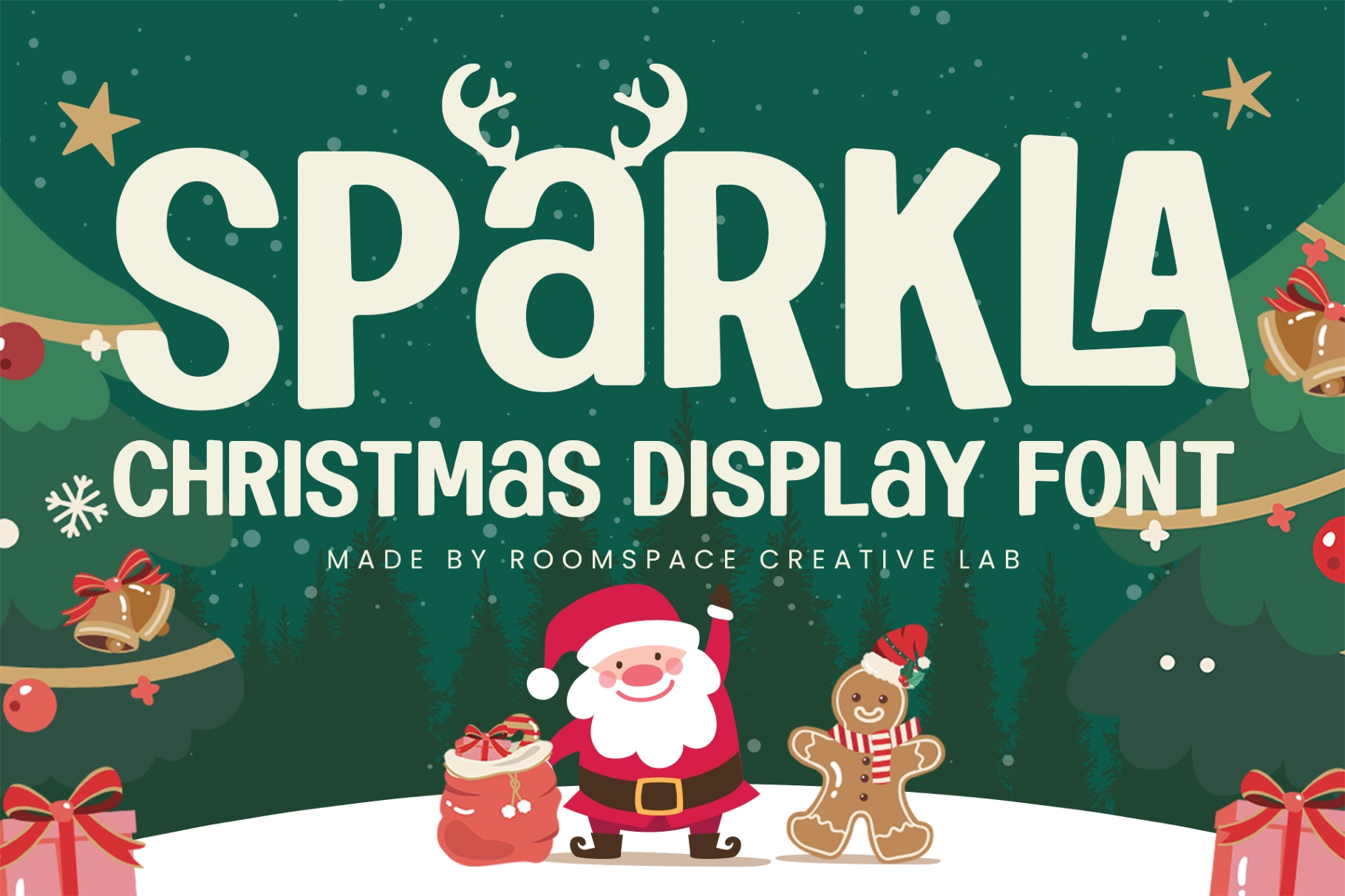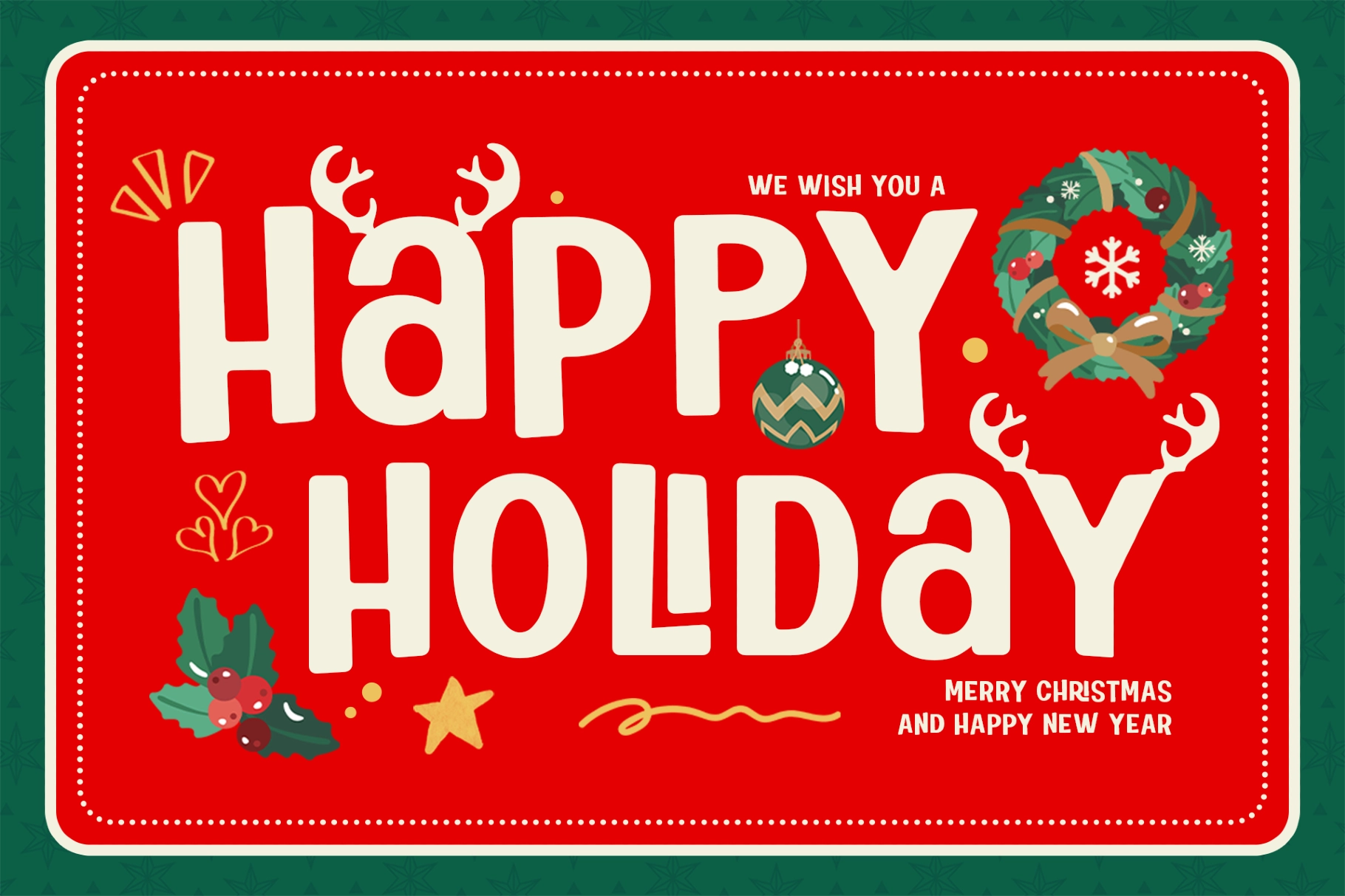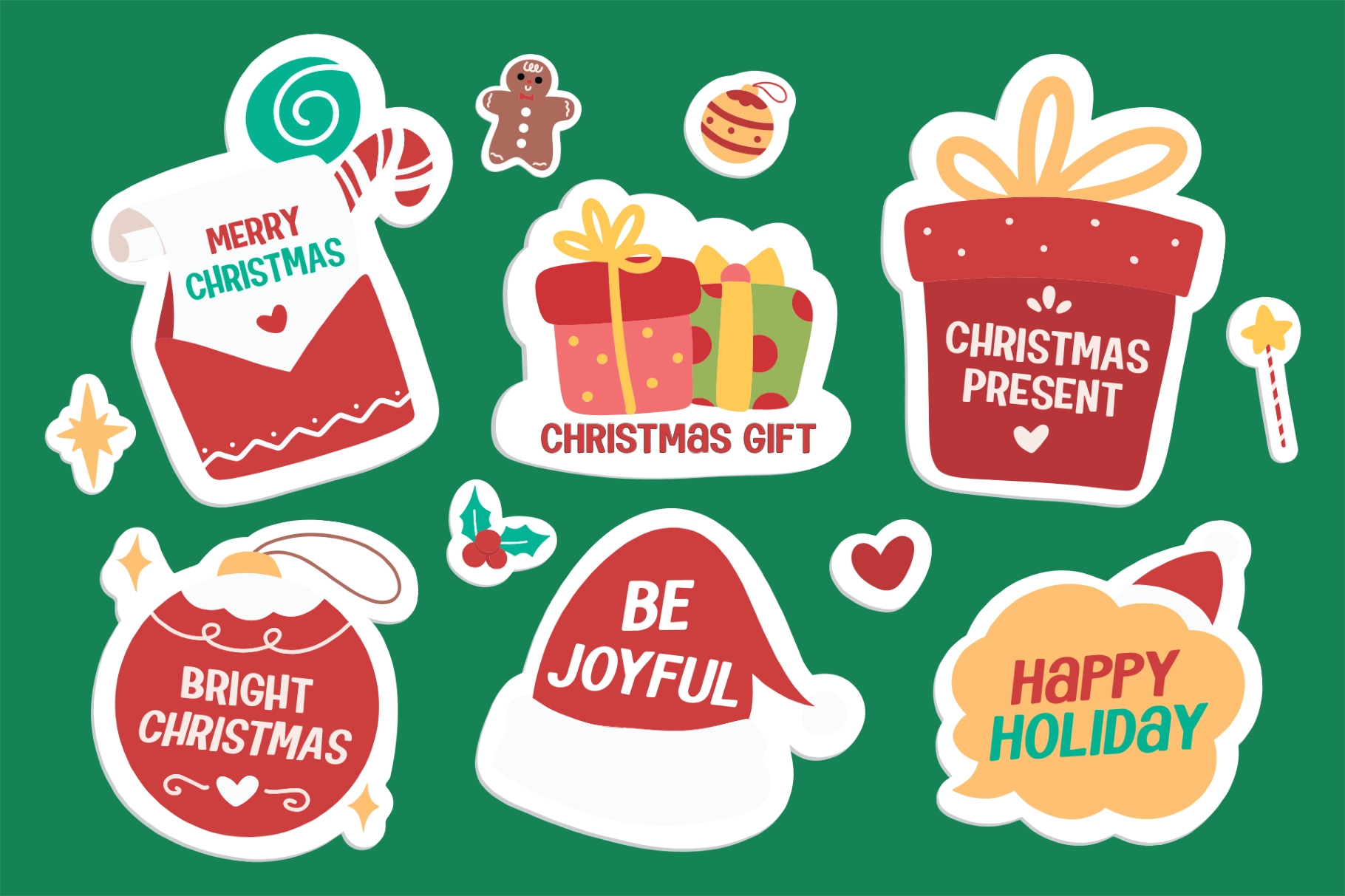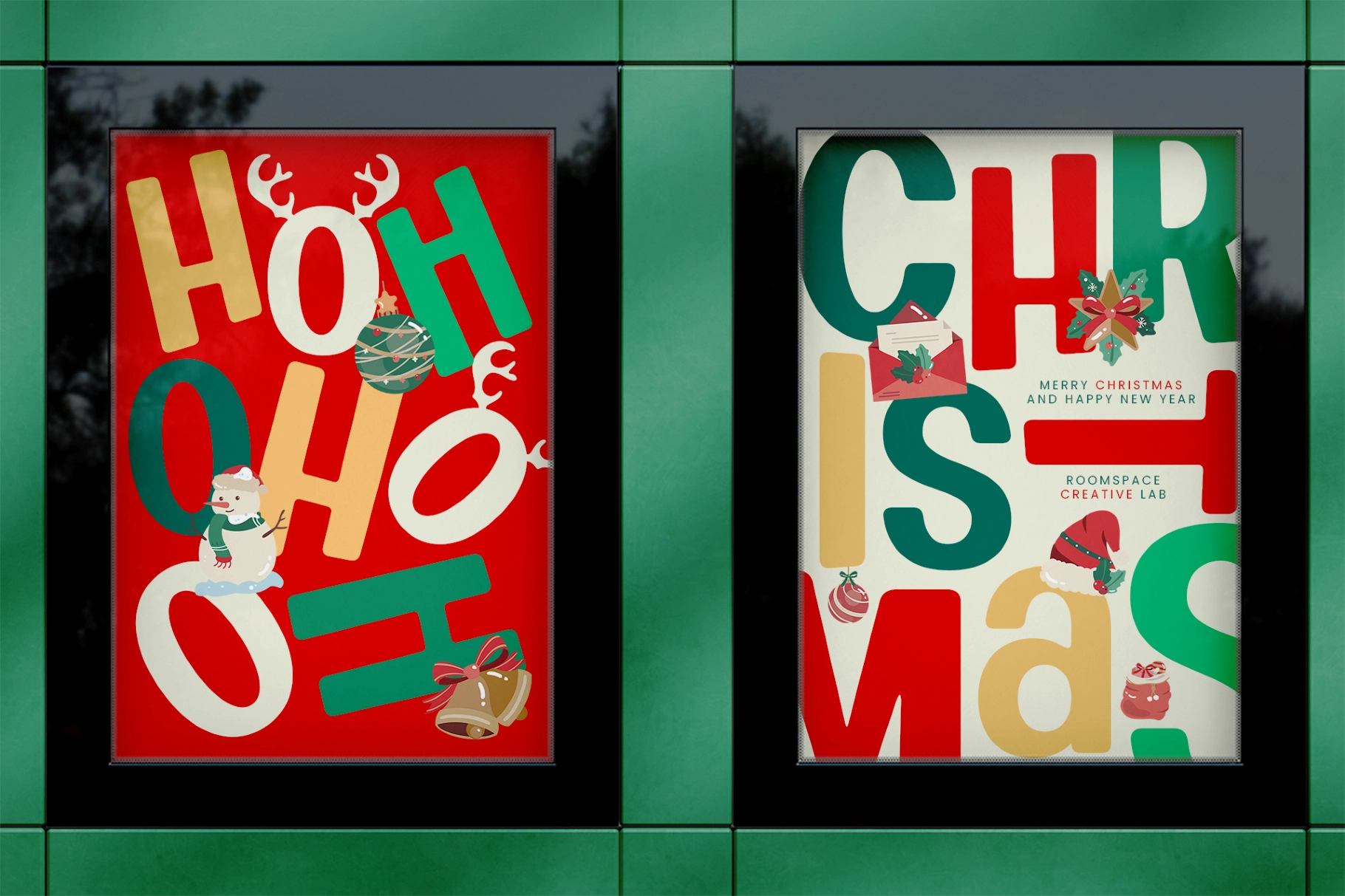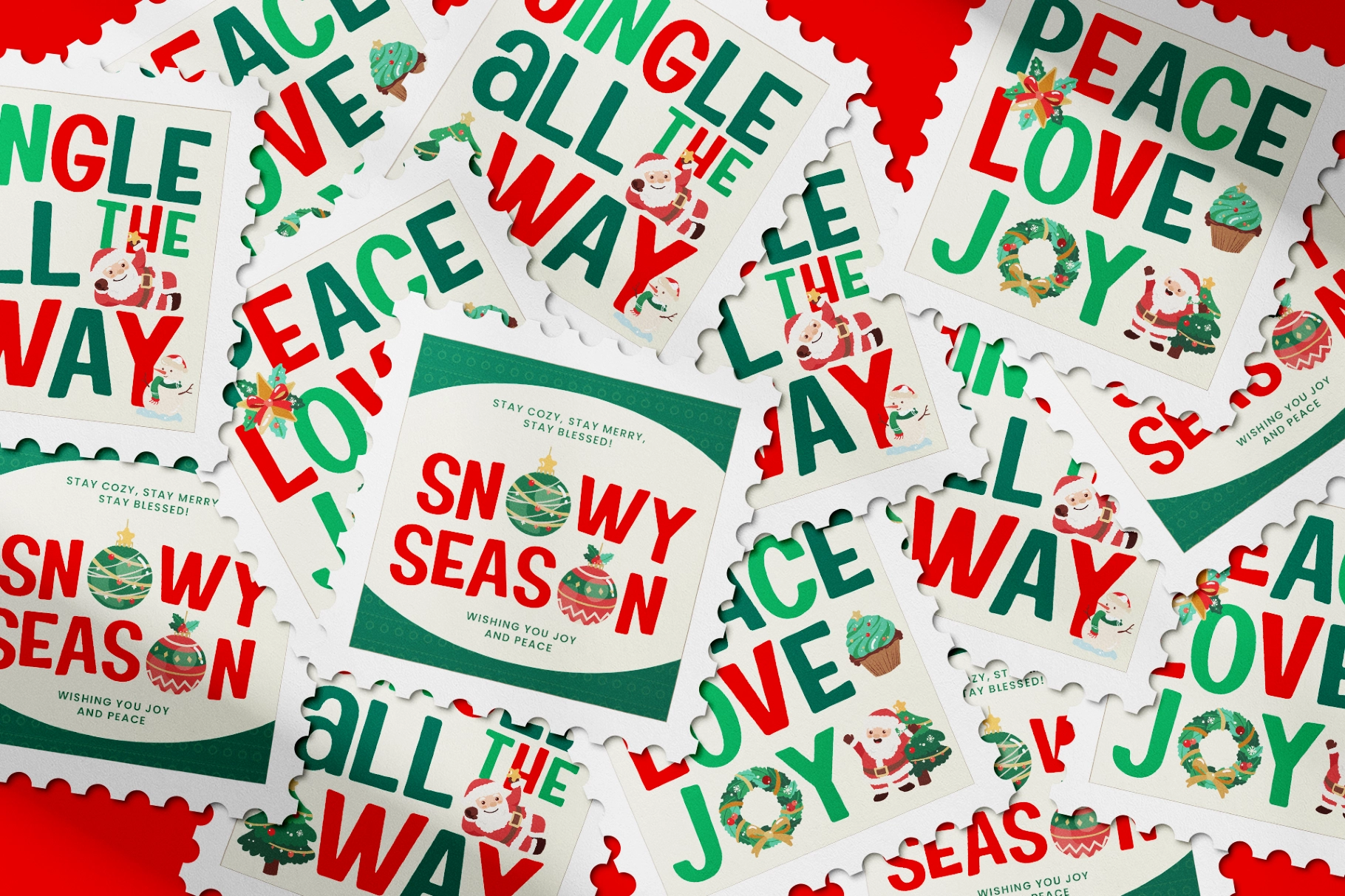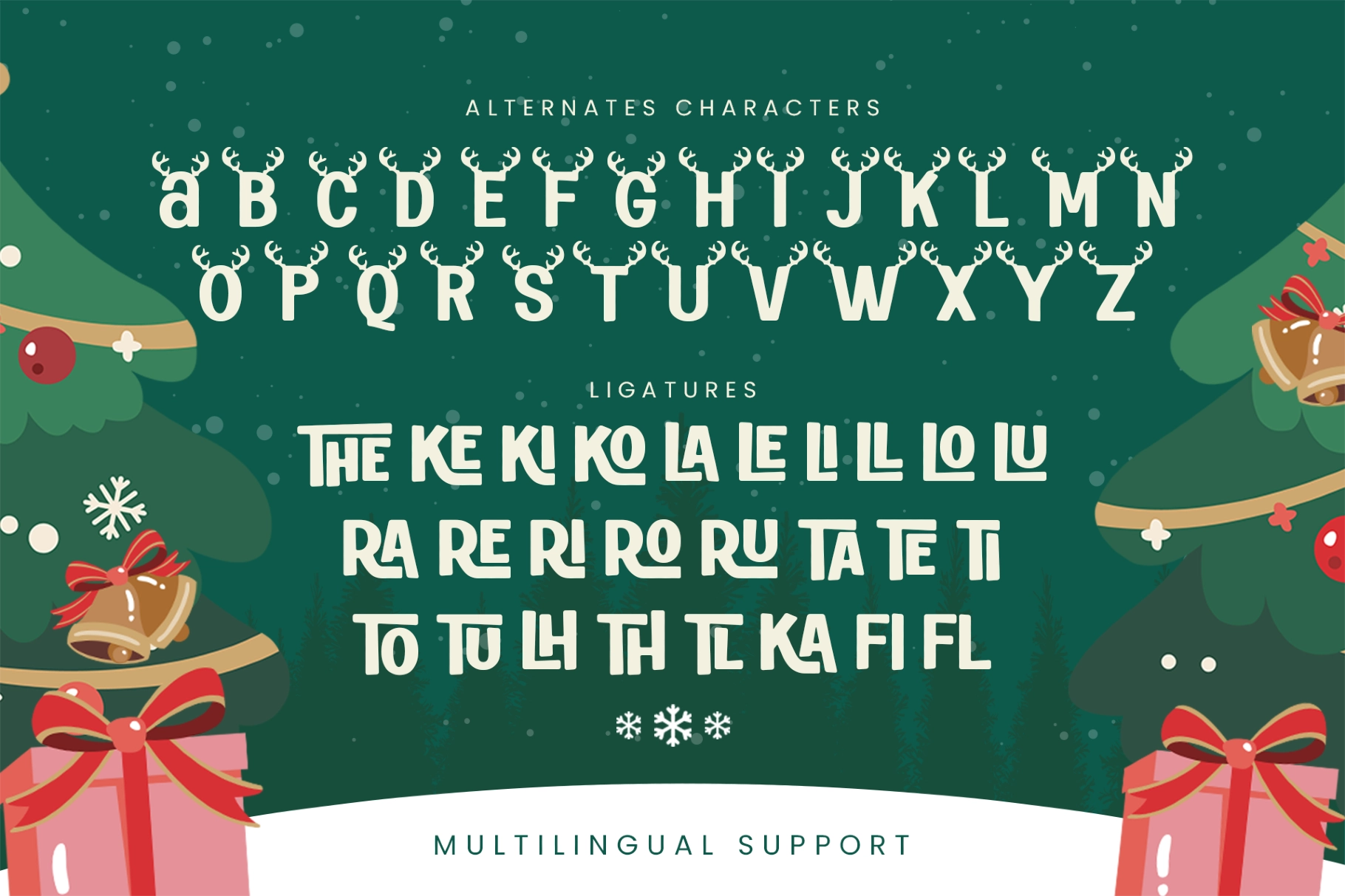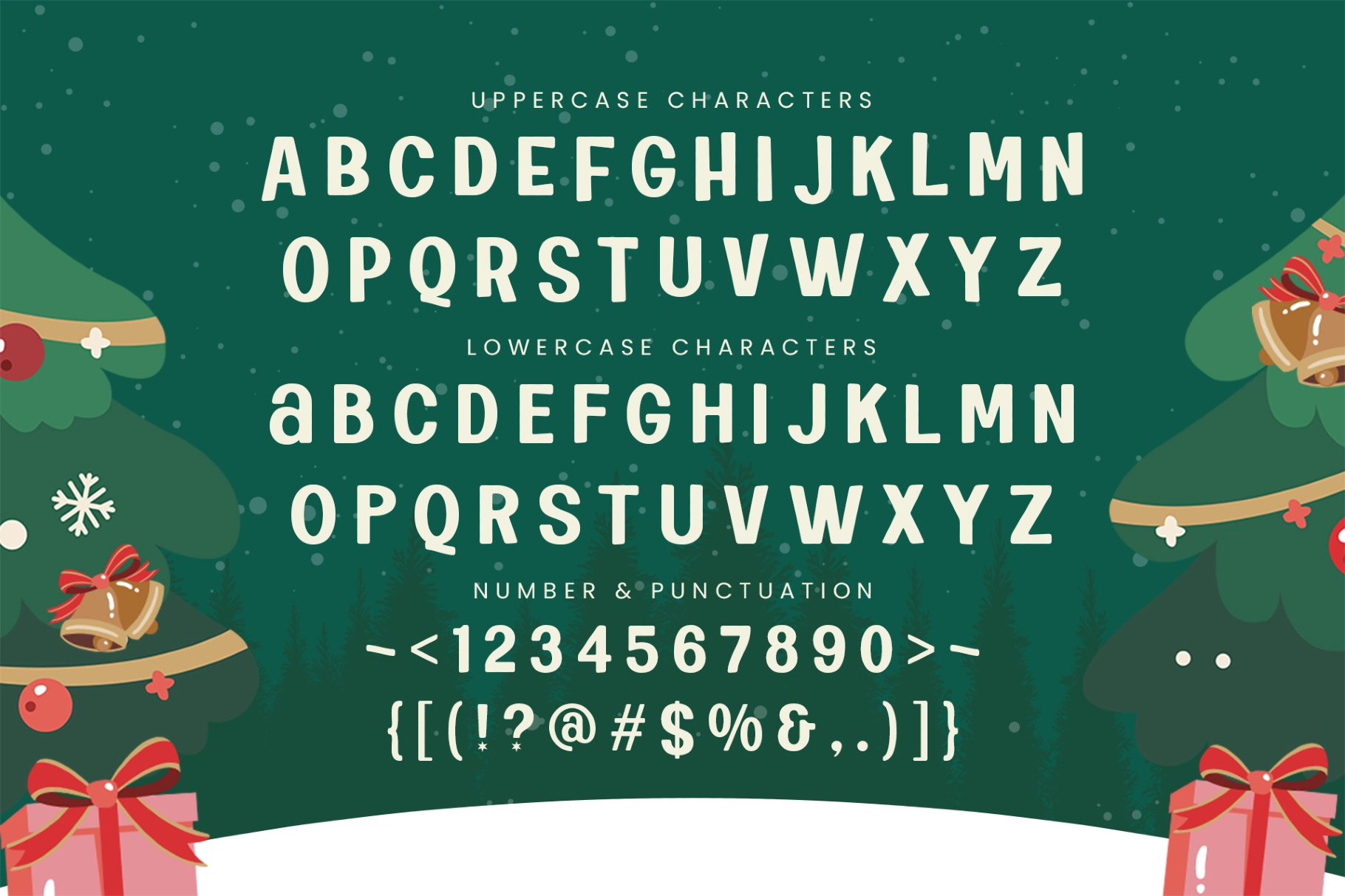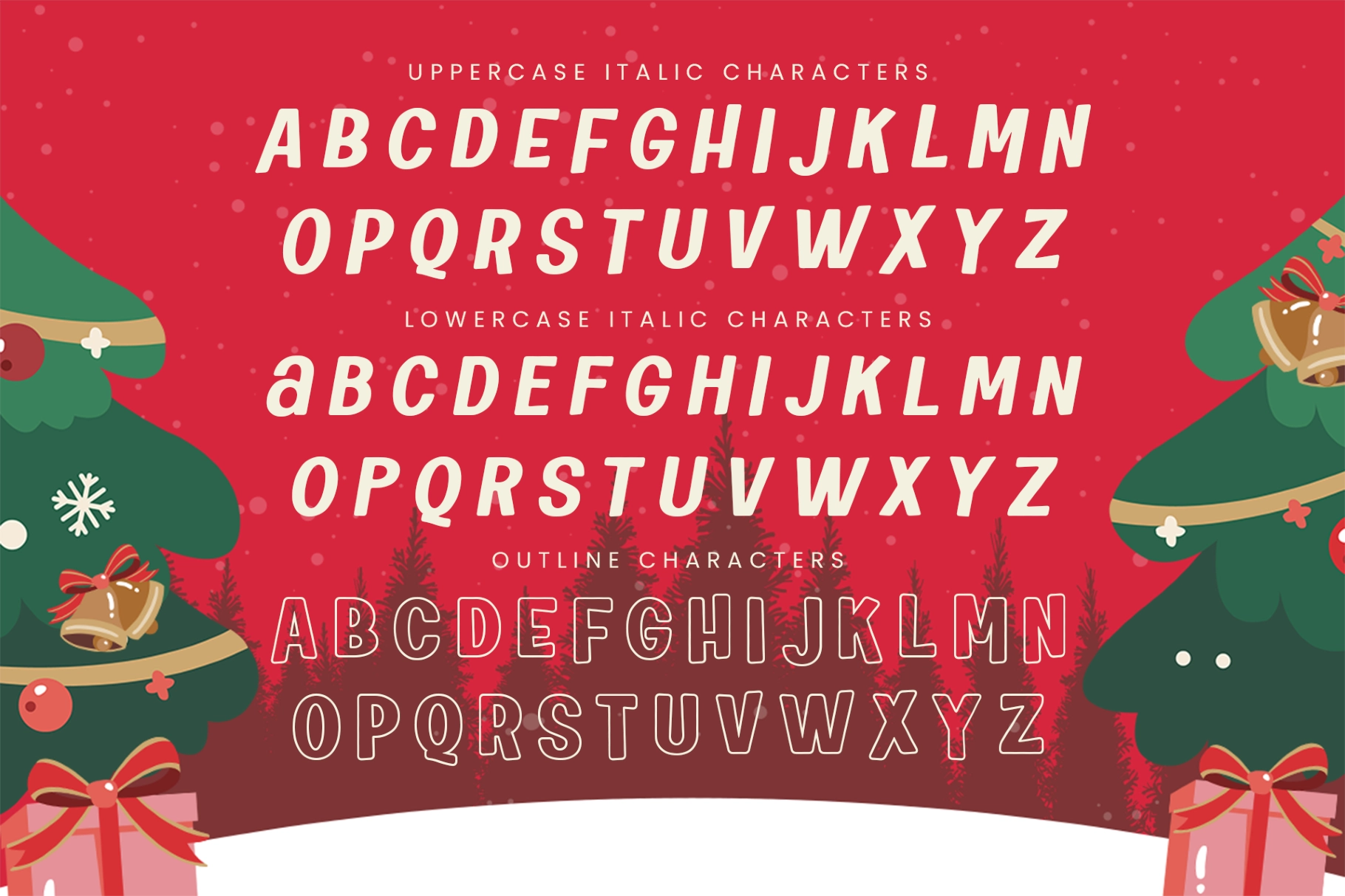
Sparkla – Christmas Holiday Display Font
Sparkla draws on the visual language of hand-painted holiday signs, mid-century Christmas cards, and seasonal shop windows — packed into a chunky upright display font with wide letterforms, rounded terminals, and lively proportions that go loud at large sizes. The roman and italic cuts share the same festive weight, while the decorative alternate set adds reindeer antlers to every glyph — a trick that reads as illustration as much as typography.
Sparkla holds a holiday-party register without tipping into kitsch: the outlines stay clean, the ligatures are plentiful (Th, Ka, fi, fl and more), and the built-in antler alternates let a single headline do the decorative work without extra assets.
- 3 styles: regular, italic, outline;
- Uppercase & lowercase;
- Decorative antler alternates for every character;
- Ligatures;
- Numerals, punctuation & symbols;